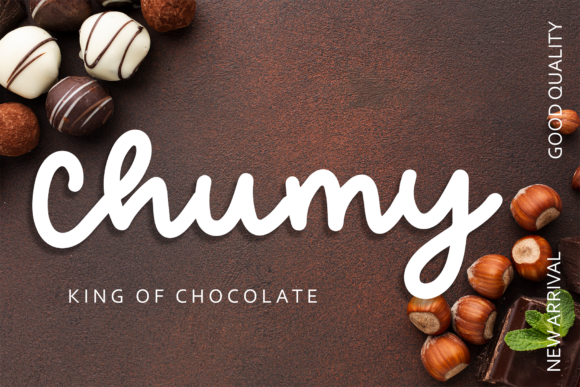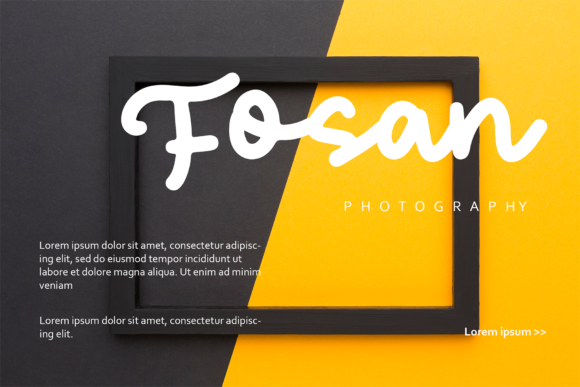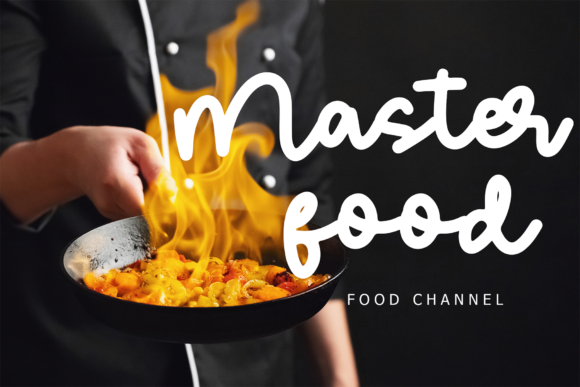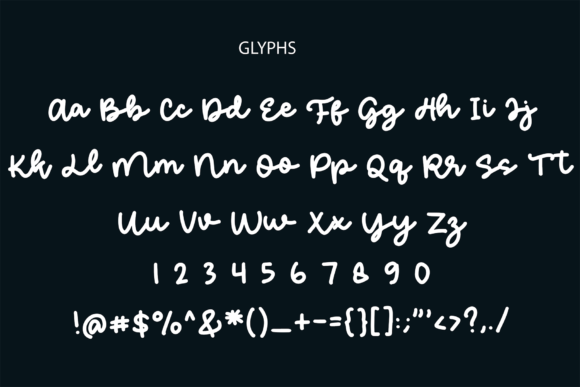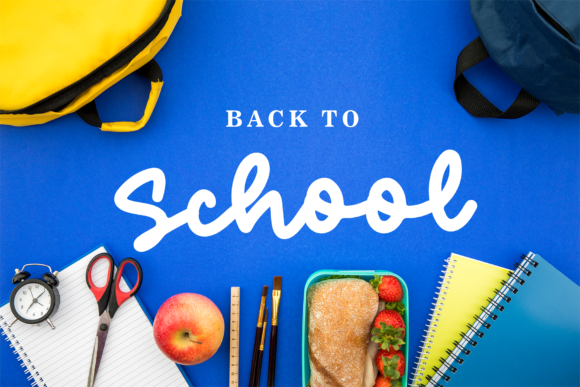
Introduction to Lagi Font
Remember the moment when you finally found the perfect font for your design project? The feeling of excitement and relief is indescribable, isn’t it? That’s exactly what Lagi Font can offer you – a sense of satisfaction and creativity unleashed. This sweet and friendly handwritten font is a game-changer for designers, and we’re excited to dive into its world.
Whether you’re working on a high-quality design project or just need a unique touch for your creative project, Lagi Font is an excellent choice. Its natural and unique style makes it incredibly versatile, allowing you to experiment and push the boundaries of your imagination. Plus, with a free download available, you can access this design resource without any hassle.
Key Features of Lagi Font
- High-quality font design, perfect for creative projects and design resources.
- Unique, modern design that can add a touch of sophistication to any creative project or design resource.
- Perfect for use in graphic design, digital art, and other creative fields where a high-quality, unique font is essential.
Honest Review: Lagi Font
I recently had the chance to work with Lagi Font for a creative project, and I was pleasantly surprised by its high quality and versatility. As a designer, I’m always on the lookout for new design resources to elevate my work, and Lagi Font definitely delivered.
One of the things that stood out to me was the font’s transparent background, which made it easy to integrate into my design without any fuss. The free download was also a major plus – it’s always great to have access to high-quality design assets without breaking the bank.
- ⚠️ Limited character set, which can make it difficult to use for longer texts
- ⚠️ Not suitable for print materials, due to its digital design
Overall, I was impressed with Lagi Font’s performance, and I would definitely consider using it for future projects. While it may have some limitations, its strengths far outweigh its weaknesses – making it a valuable addition to any designer’s toolkit.
Lagi Font is commonly used in creative projects such as logos, business cards, and social media graphics. It is also used in presentations and documents where a unique and high-quality font is required.
Tips for Getting the Most Out of Lagi Font
To get the most out of Lagi Font, use it on a transparent background to make it stand out. You can also pair it with other fonts to create a unique and eye-catching design. Additionally, use Lagi Font in a variety of sizes and styles to add depth and visual interest to your design.
Comparison to Lagi Font: Great Vibes Font has a more elegant and refined feel compared to Lagi Font’s bold and playful style. While Lagi Font is great for creating eye-catching headlines, Great Vibes Font is better suited for body text and smaller designs.
Does Lagi Font have a transparent background?
Yes, Lagi Font is designed with a transparent background, making it easy to use with images and other design elements. This feature allows you to create seamless and professional-looking designs with Lagi Font.